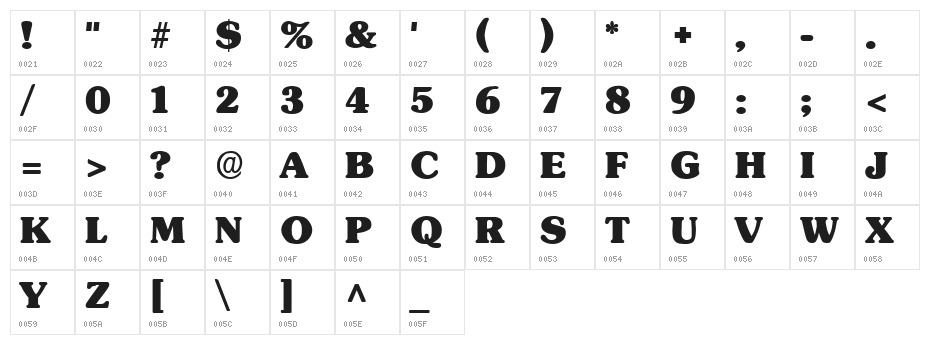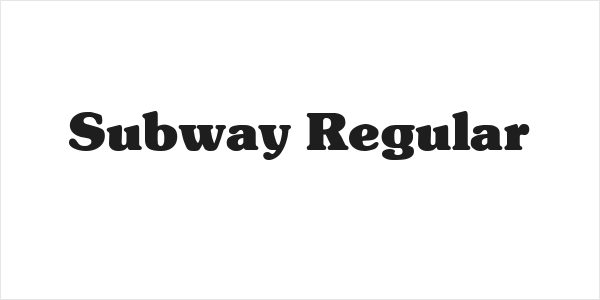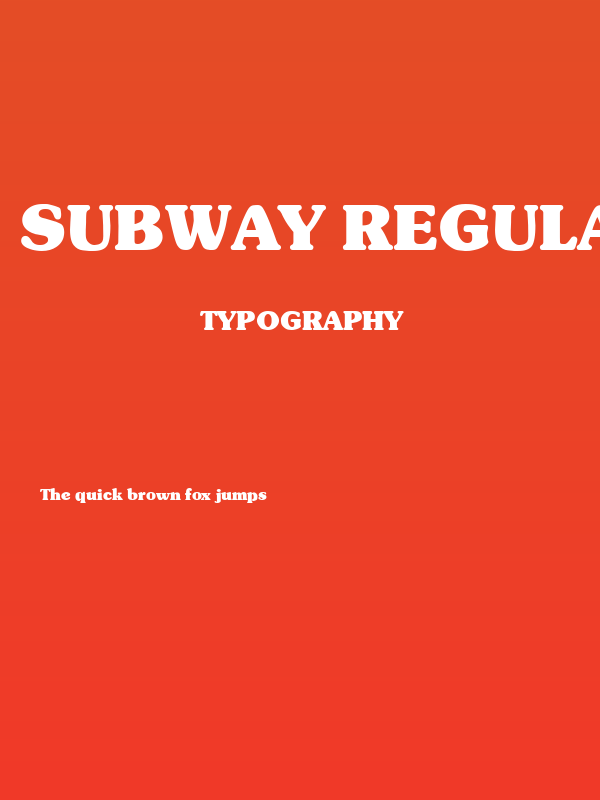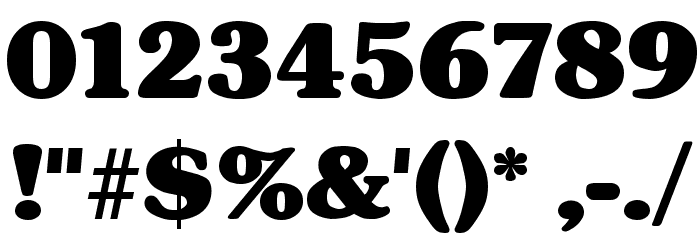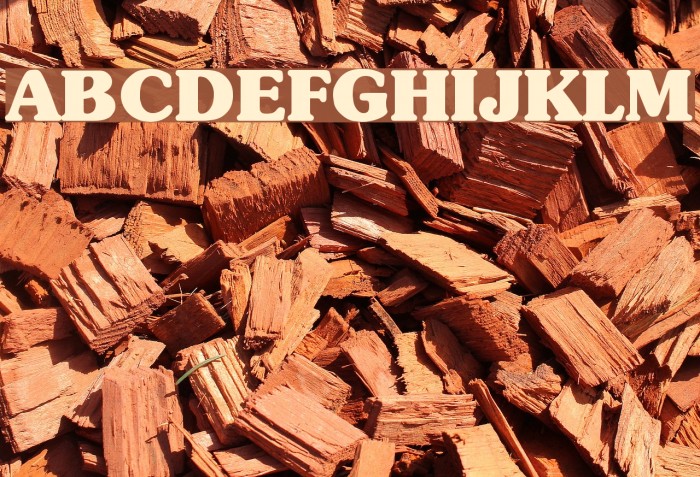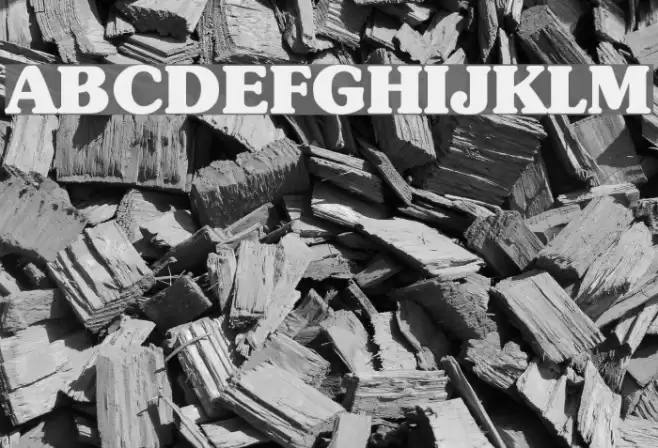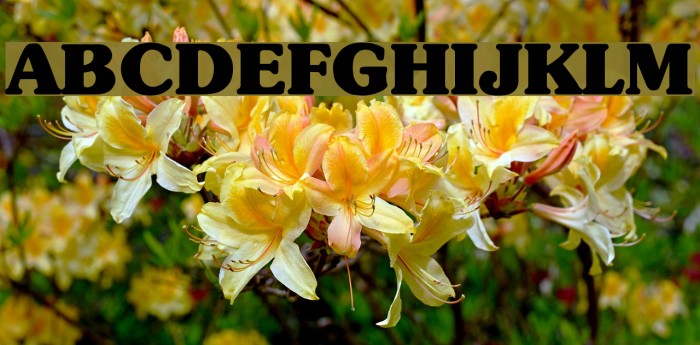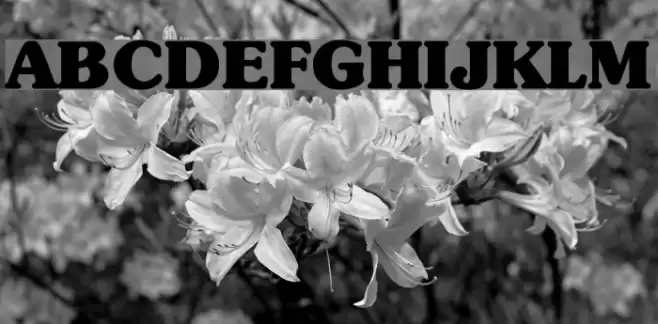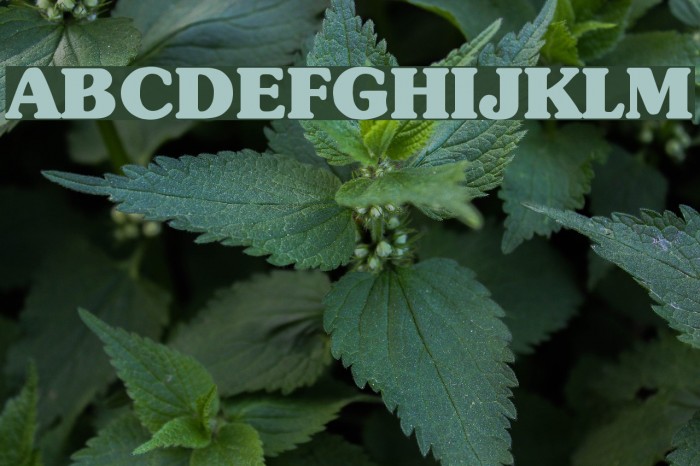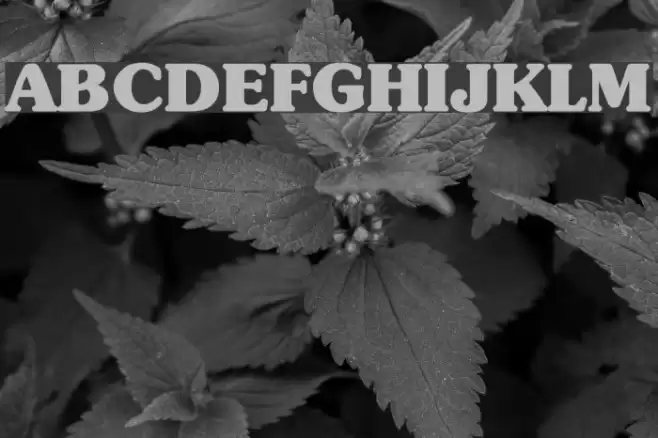
Subway Regular Font
Subway Regular Description
This font features bold, rounded characters with a strong presence, making it ideal for impactful designs. The uppercase letters are robust and evenly spaced, while the lowercase letters maintain a consistent weight, ensuring readability. The numerals are clear and distinct, with a slightly playful touch that adds character. Special characters are well-defined, complementing the overall style. The font's boldness and rounded edges give it a friendly yet authoritative appearance, suitable for various design applications.
| Use Case | Headlines, Logos, Signage |
| Proposed Projects | Ideal for branding, signage, headlines, and advertising materials where a strong, friendly presence is desired. |